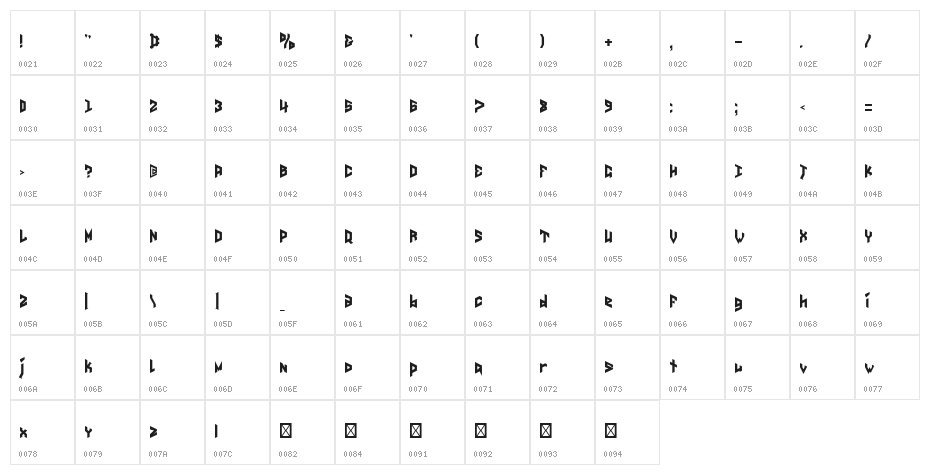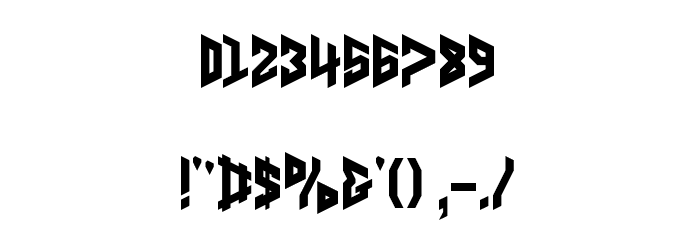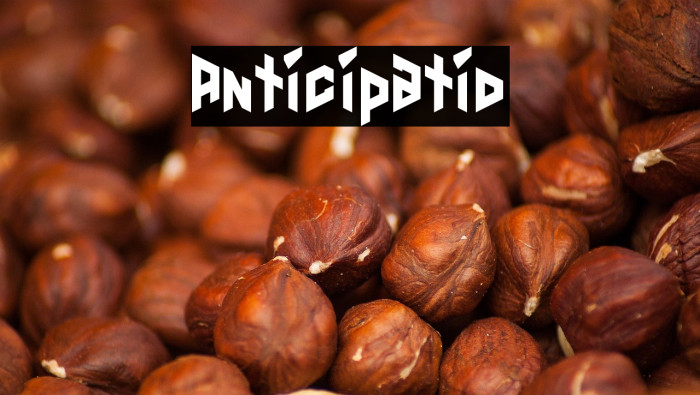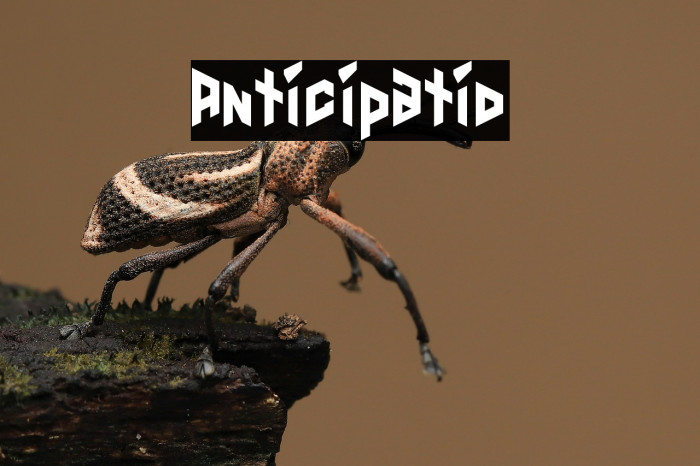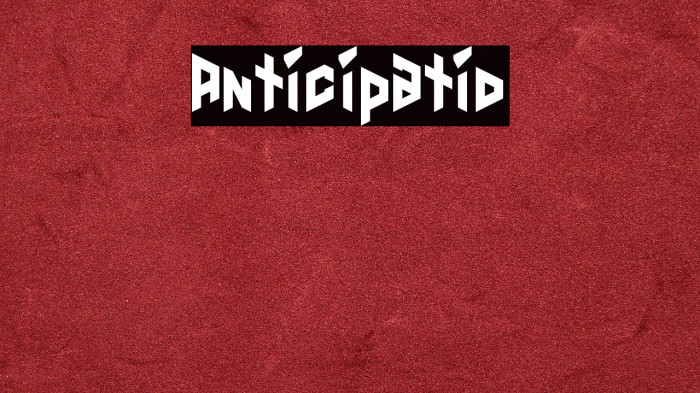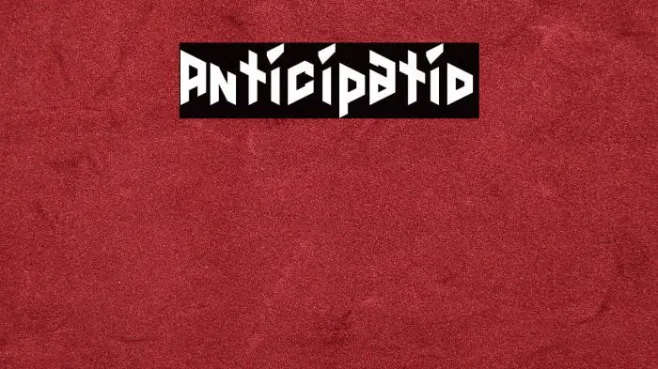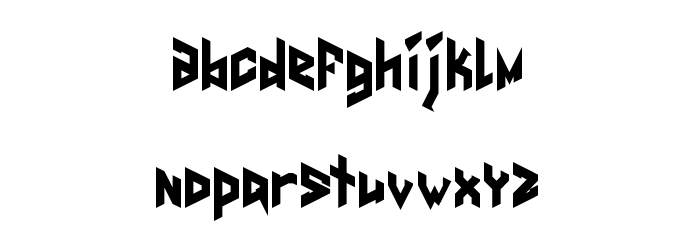
Anticipatio Font
Anticipatio Description
This font features a bold and angular design with sharp, geometric edges that give it a futuristic and edgy appearance. The uppercase and lowercase letters maintain a consistent style, characterized by their unique cut-out shapes and dynamic angles. The numbers and special characters follow the same design principles, ensuring a cohesive look throughout. The font's distinct style makes it stand out, with each character appearing to be meticulously crafted to maintain balance and readability despite its unconventional form.
| Proposed Projects | Ideal for sci-fi themed projects, video game titles, posters, and branding that requires a modern and striking appearance. |